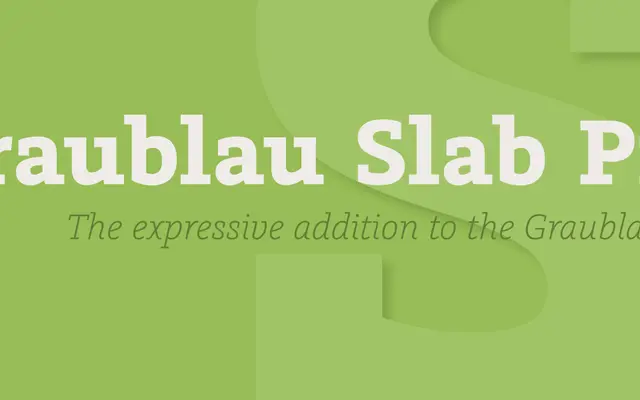
Graublau Slab Pro
FDI Type Foundry · Georg Seifert · 2012
A seven-weight slab serif companion to Graublau Sans Pro, designed by Georg Seifert for editorial headlines and corporate use.
Designed by Berlin-based Georg Seifert and released in 2012, this slab serif extends the Graublau type family that began with Graublau Sans Pro in 2008. The fourteen styles span seven weights with matching italics, and OpenType features include true small caps, old-style figures in both proportional and tabular cuts, standard and discretionary ligatures, and fraction figures. Because the weight range mirrors Graublau Sans Pro exactly, the two families pair directly for mixed-setting projects in editorial, web and corporate contexts.
A slab serif companion to the Graublau Sans Pro family, with a contemporary and expressive character suited to display and editorial use rather than traditional slab classifications.